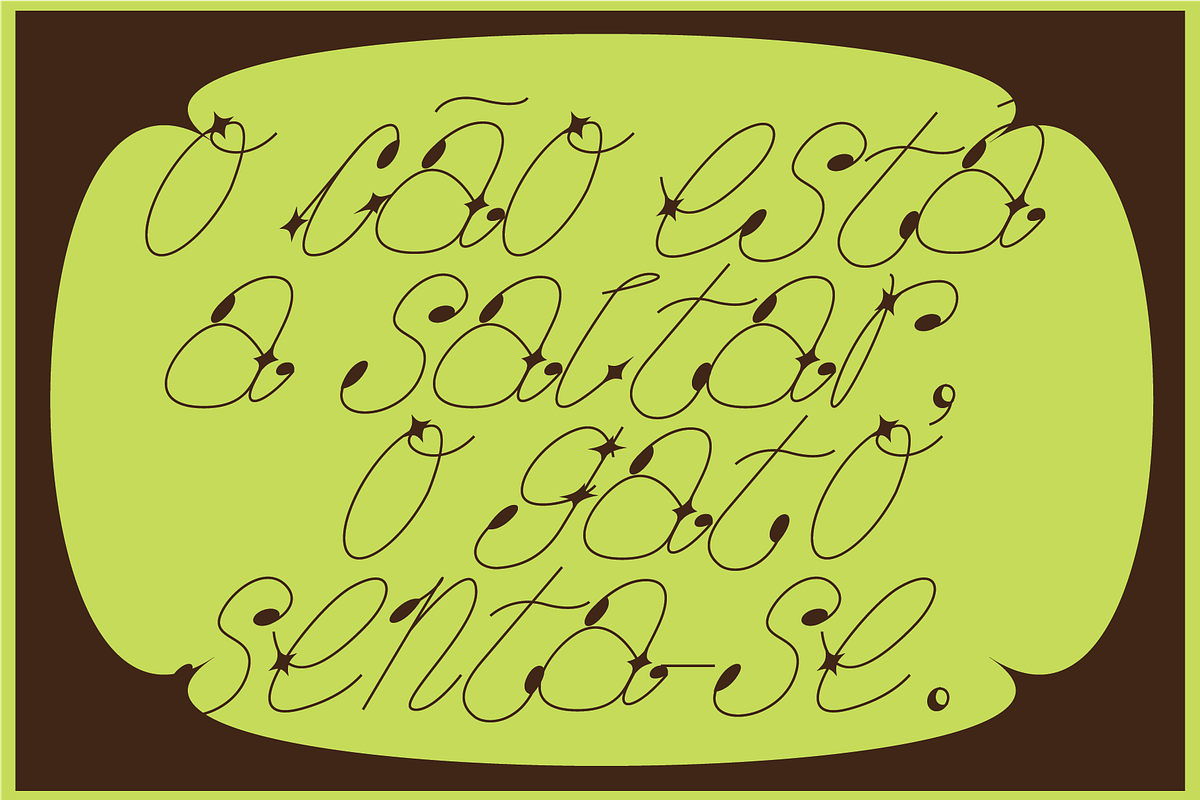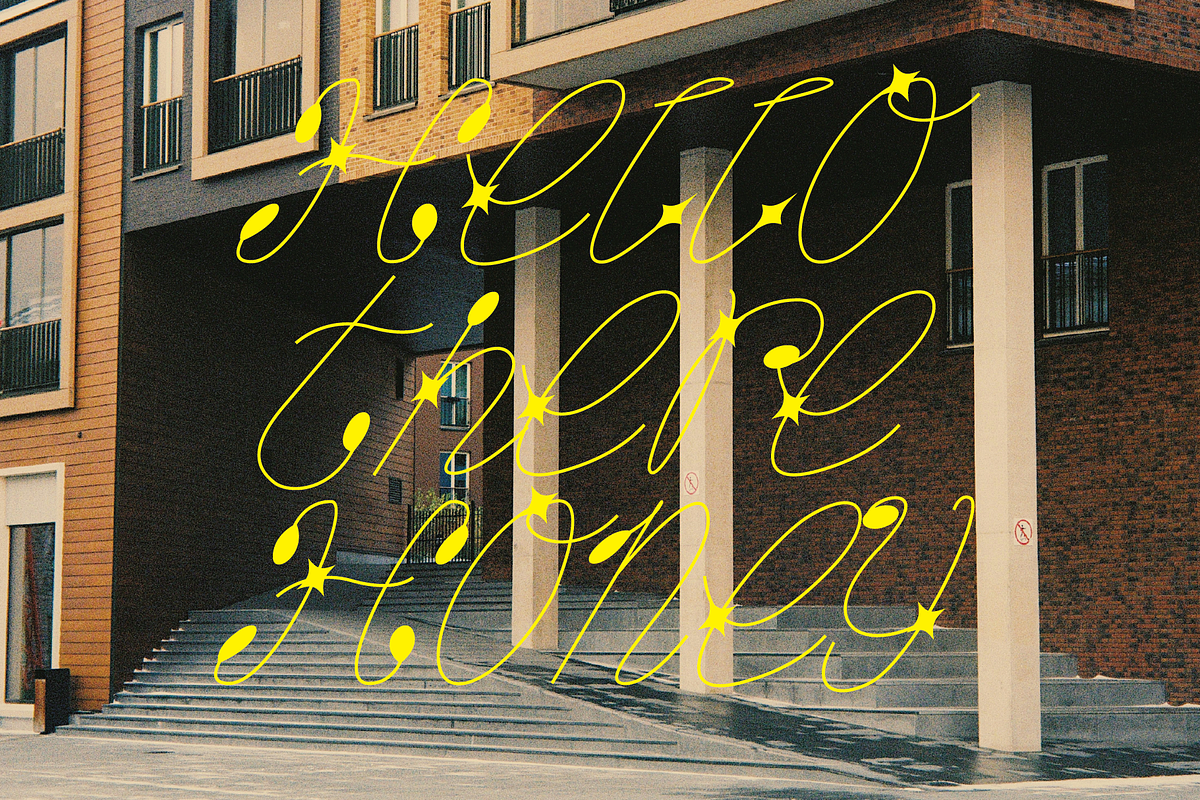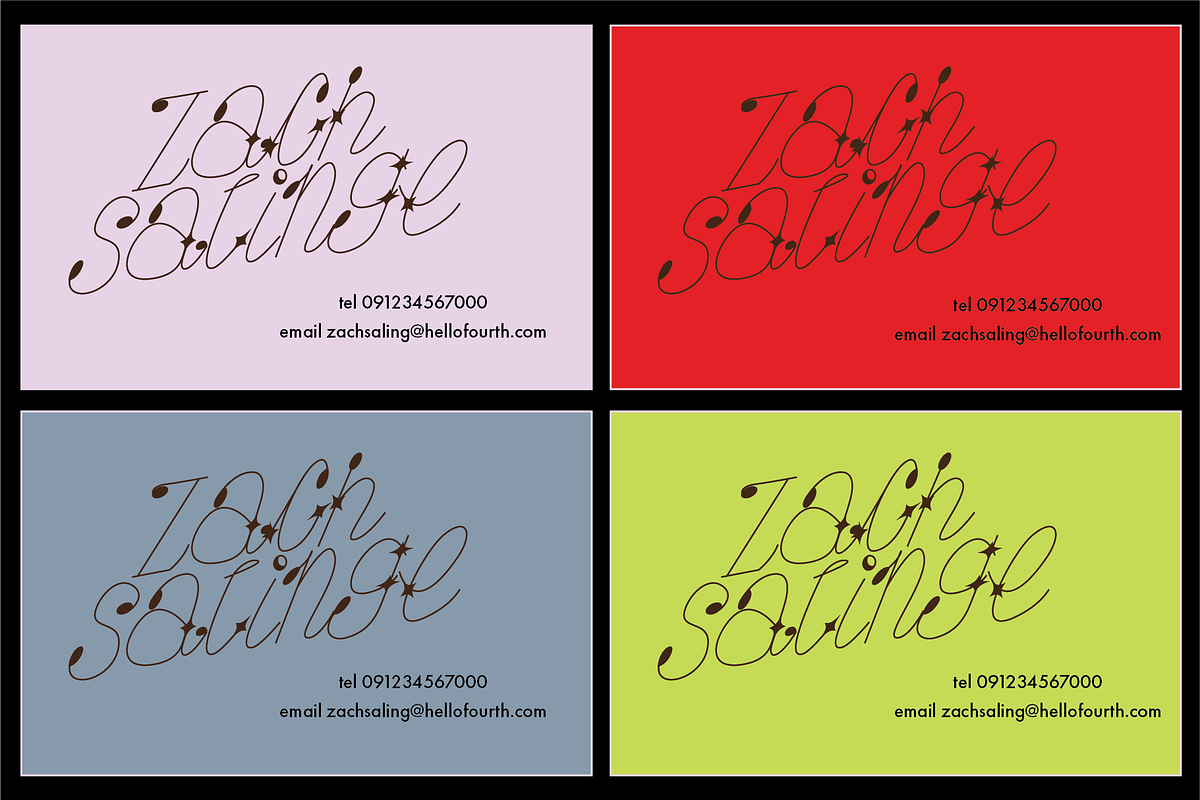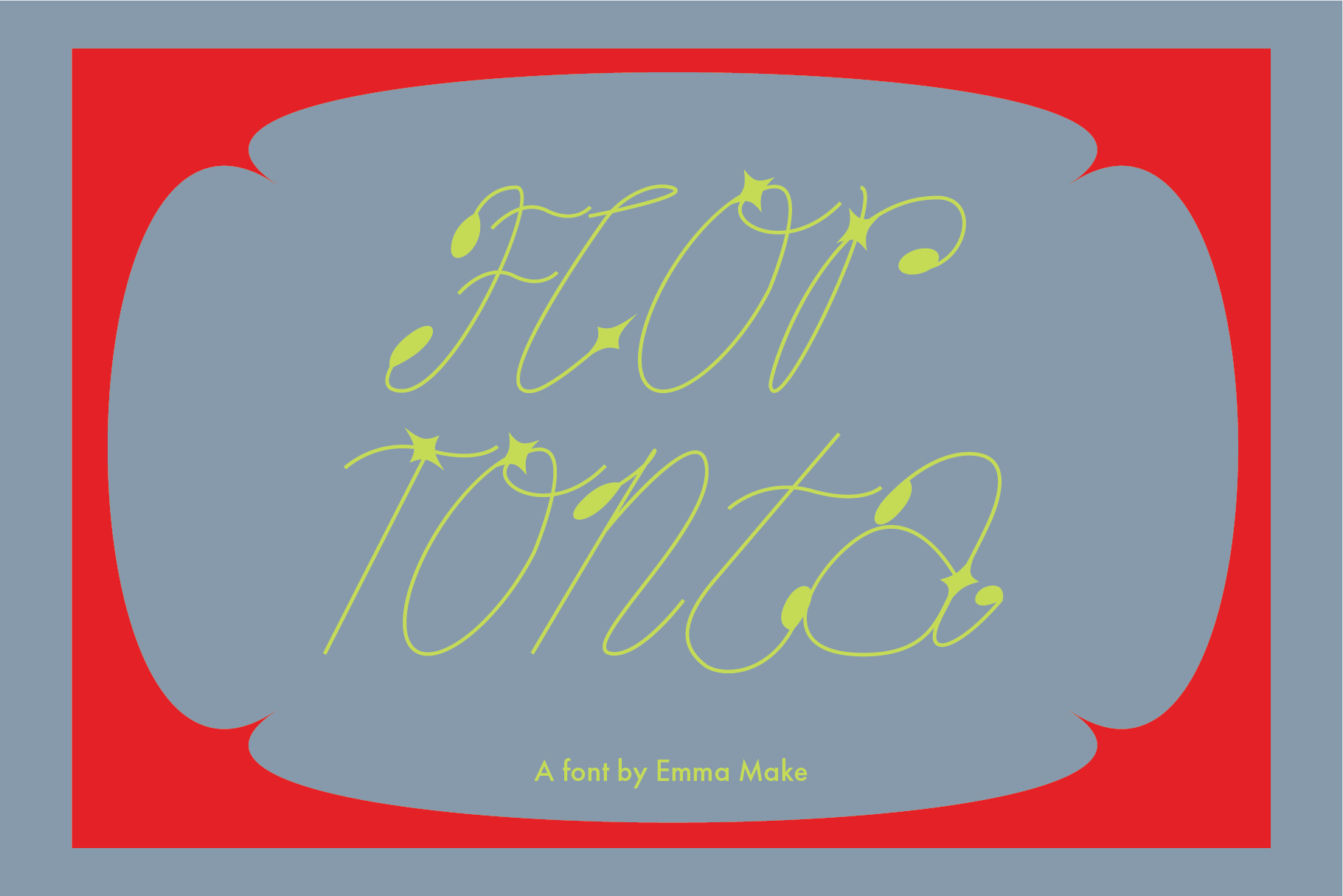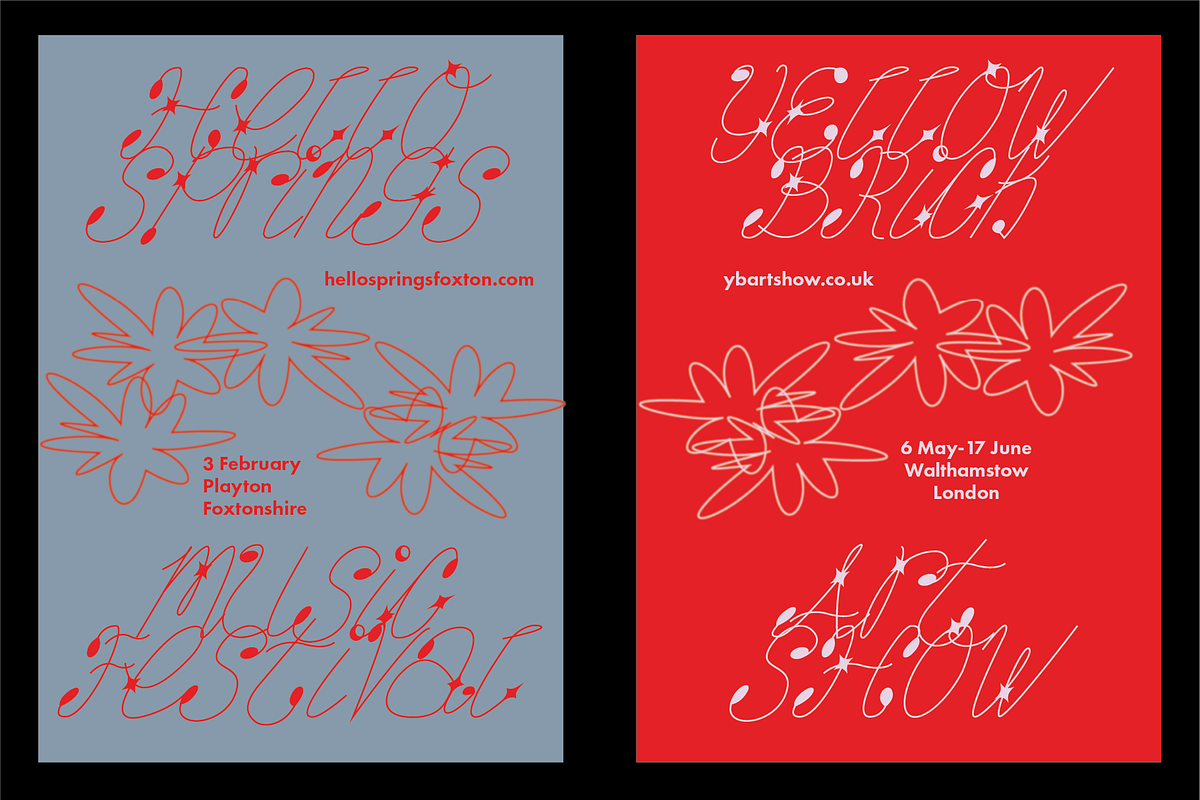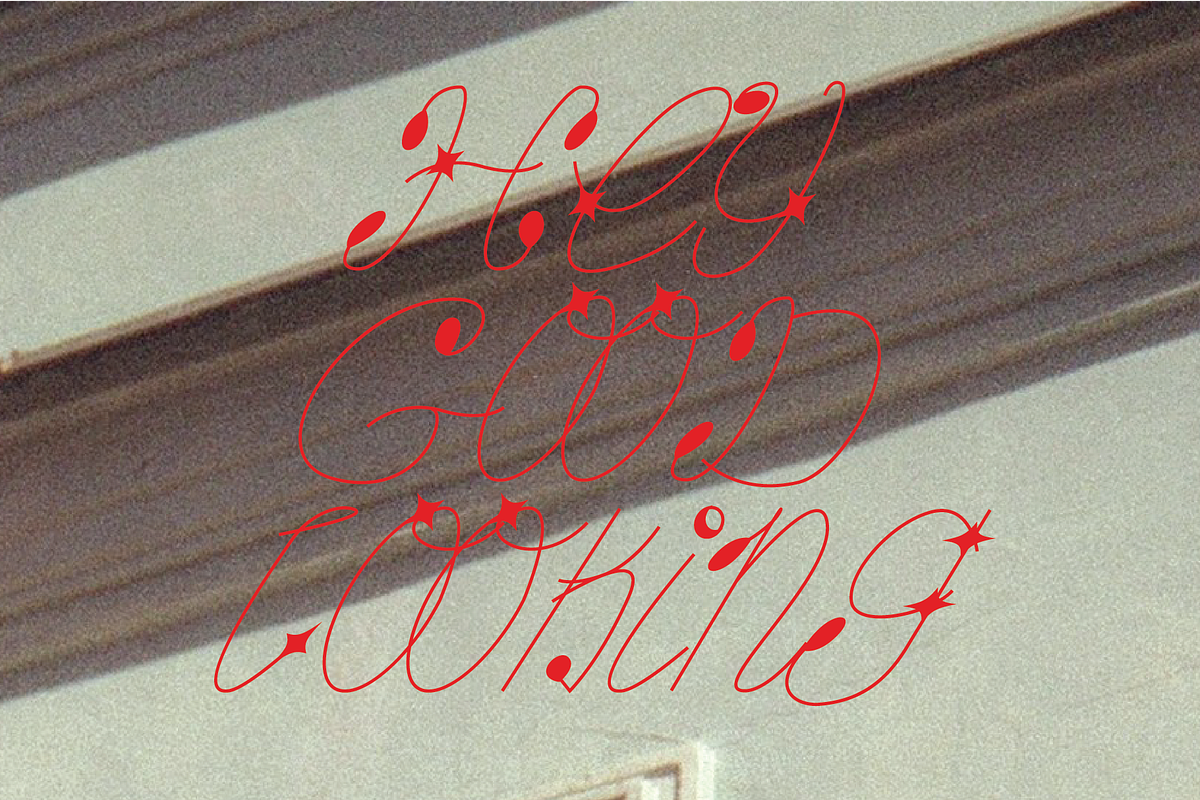
A modern cursive font for designers
Flor Tonta is a fun cursive font for the extremely creative at heart. Expertly kerned and vector made this font can be scaled up to any size making it perfect for posters, film and print.
The font is also multi-lingual